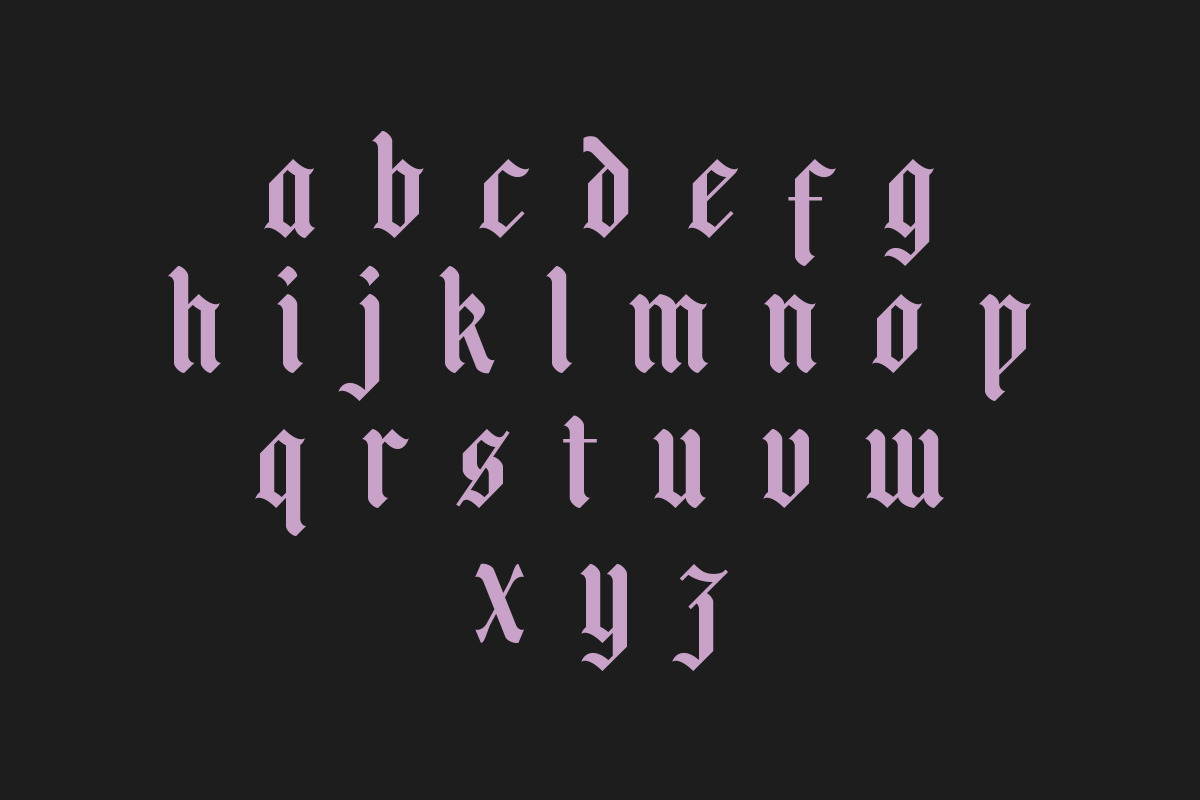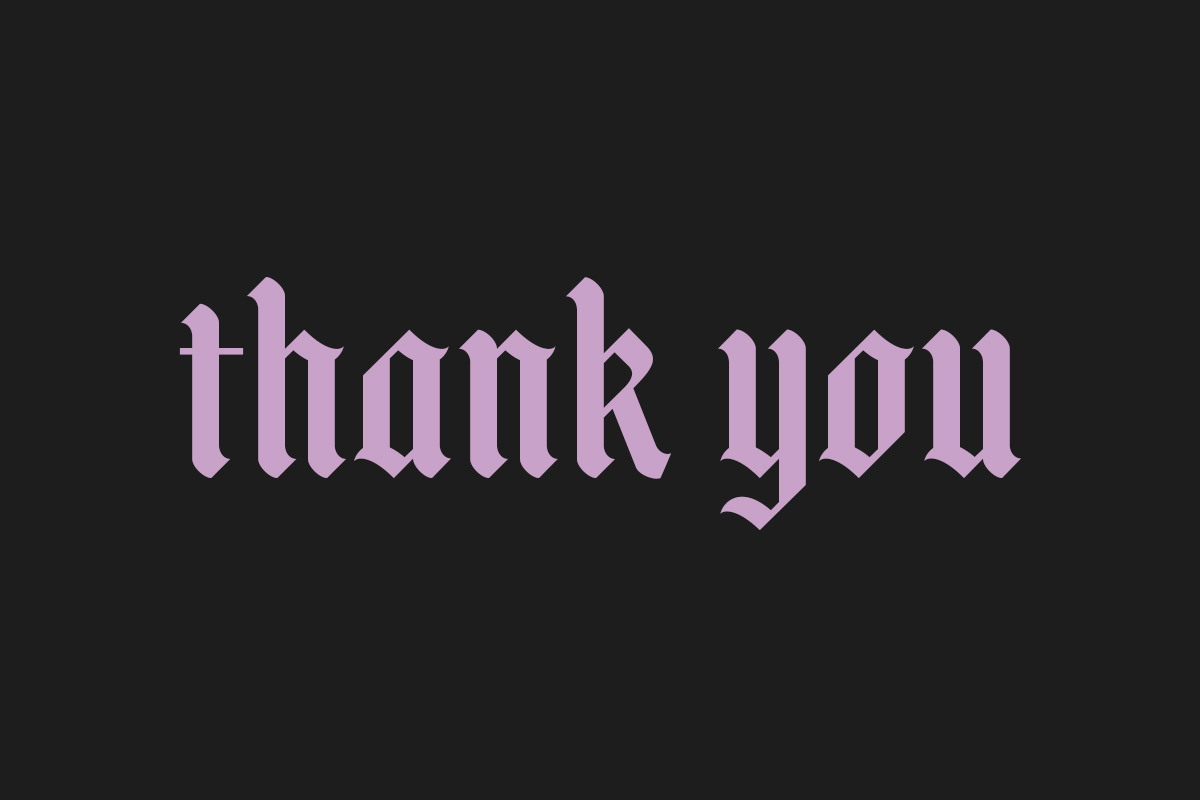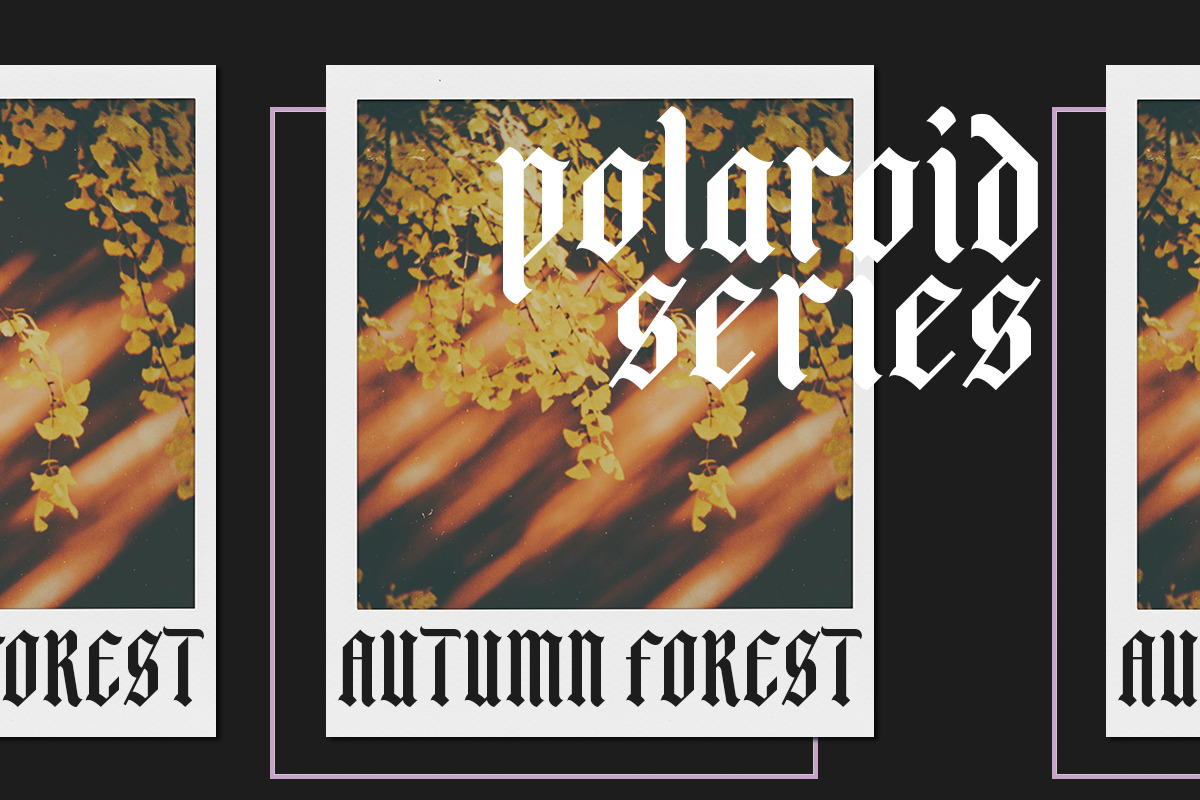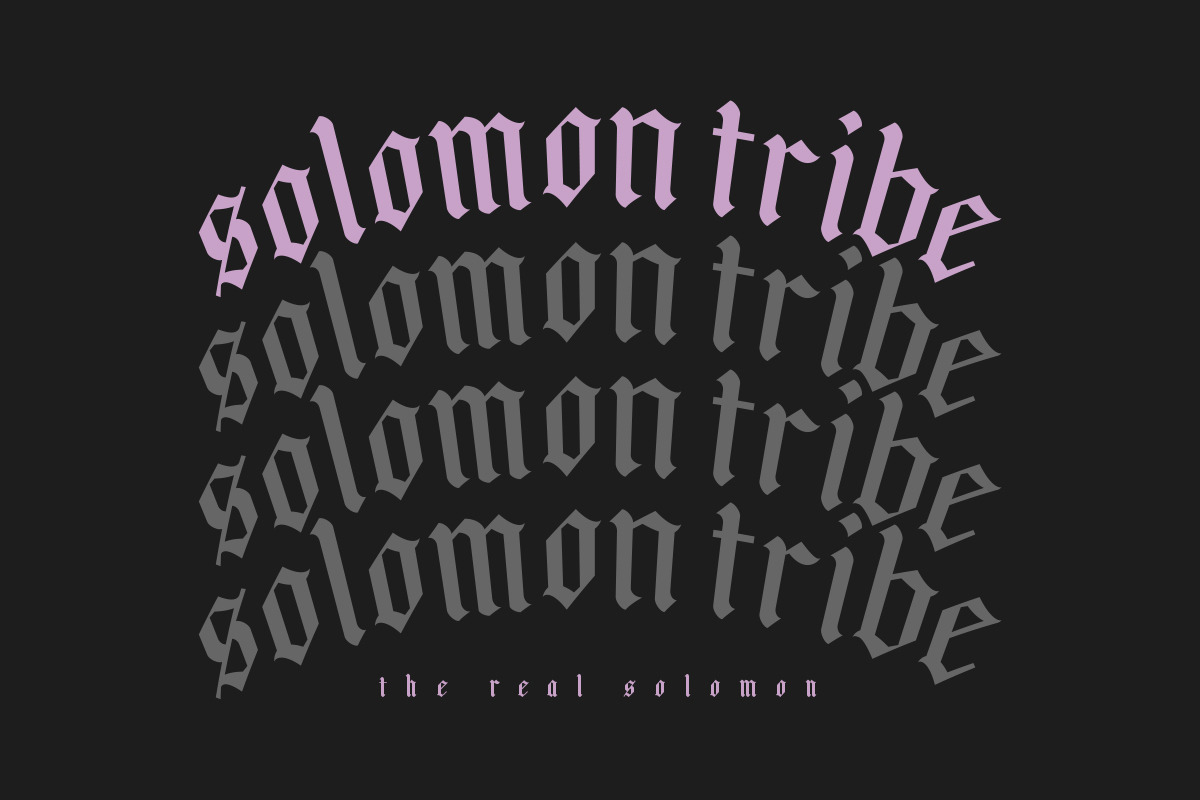
Pleasure is a blackletter font with modern style. Created for posters, web design, branding, illustrations, badges, shirt design and some other works. The font includes uppercase letters, numerals, a large range of punctuation.